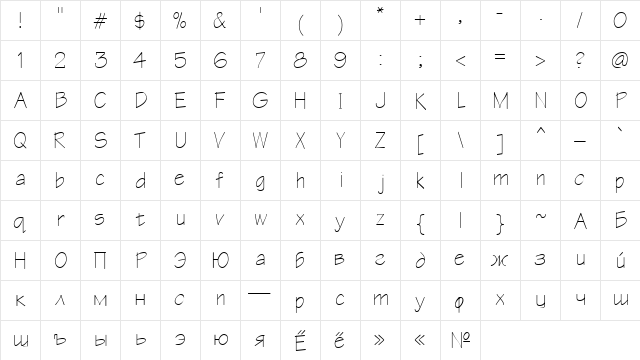
ER Architect Regular
Design Context for ER Architect Typeface
ER Architect is a composed and adaptable typeface that performs quietly and consistently across a wide range of design contexts.